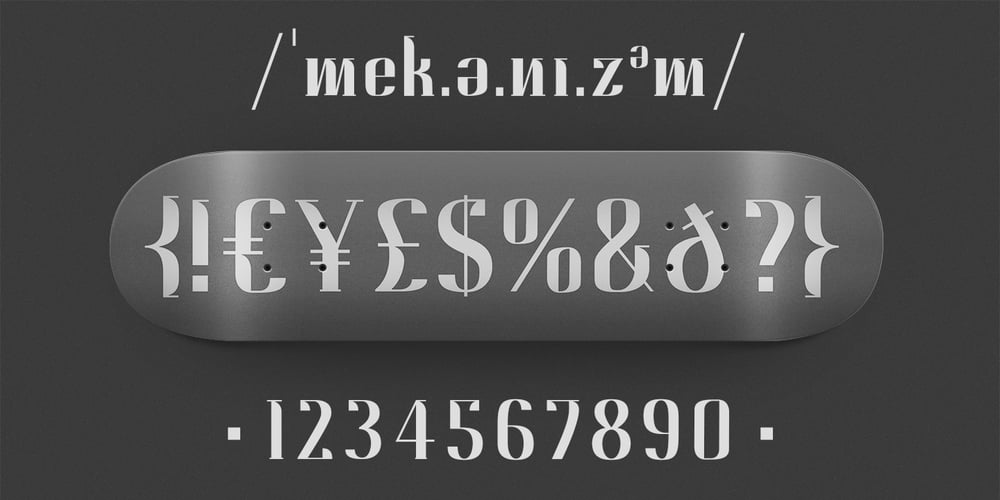
Mechanism
Mechanism font
Mechanism Font Family was designed by John Power and published by Powerfonts. Mechanism contains 1 styles and family package options. An unorthodox font with an edgy vibe. Great for use in editorial, advertising, music, film and EXTREME sports projects. With western language support.